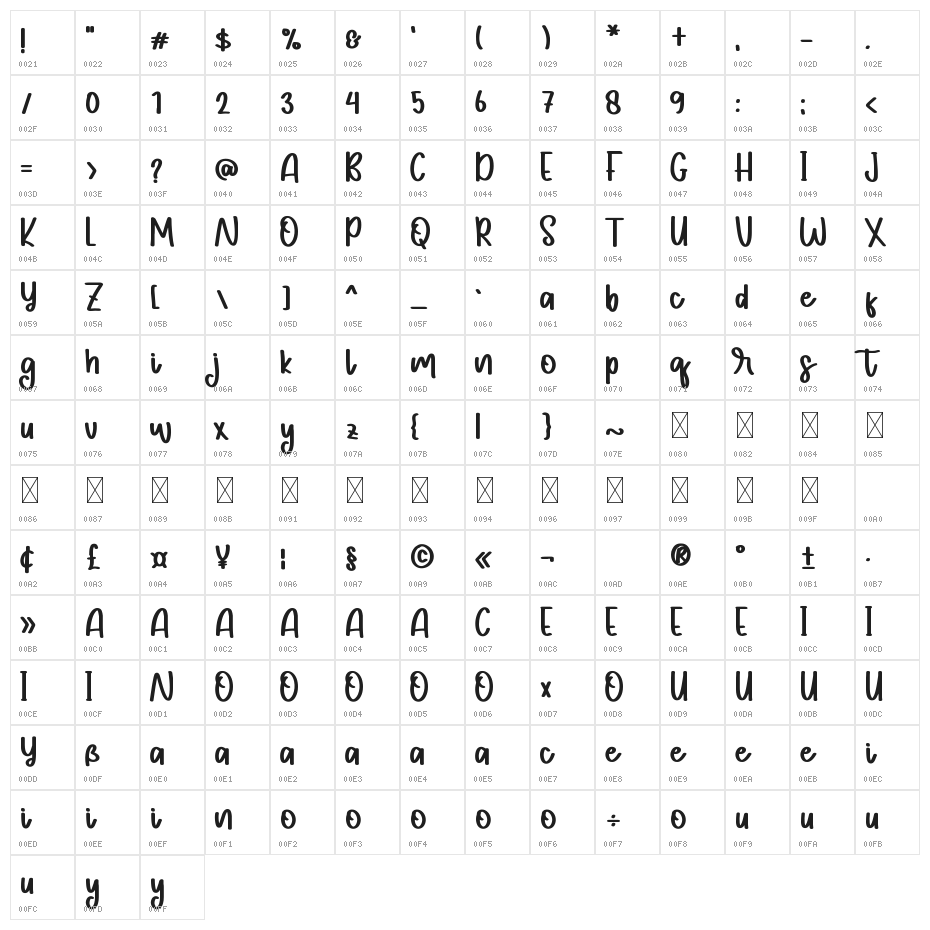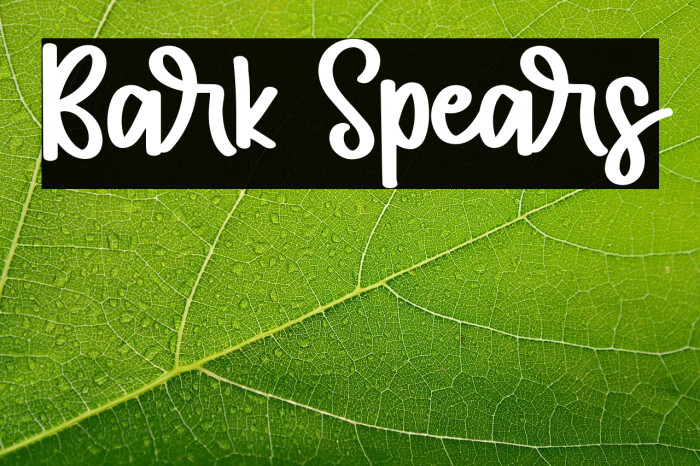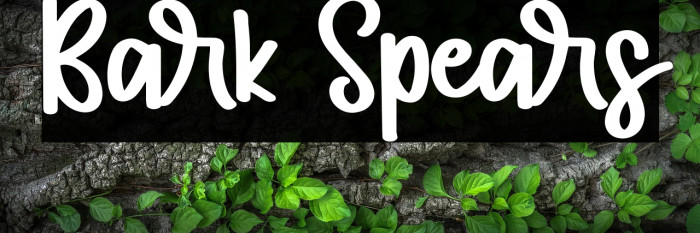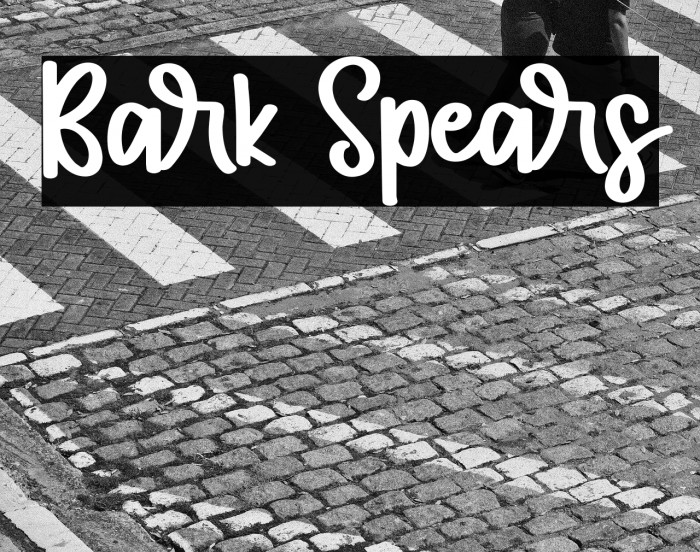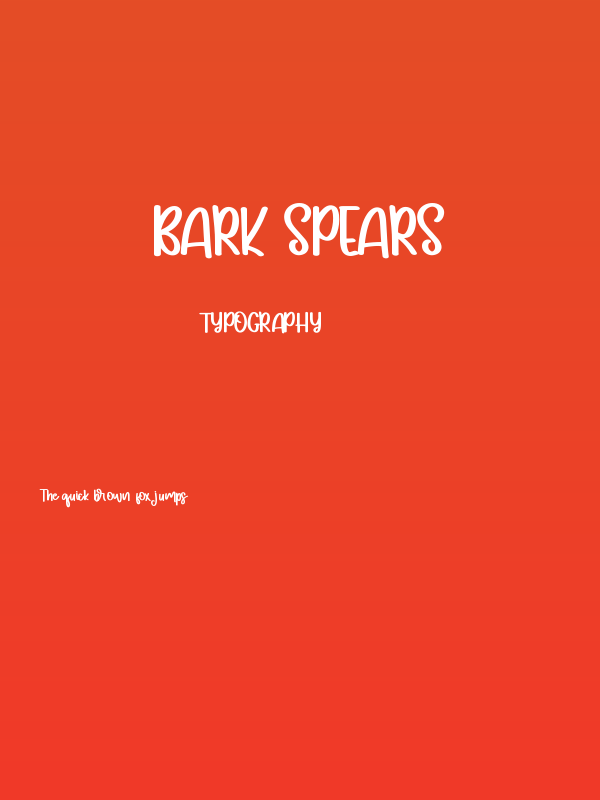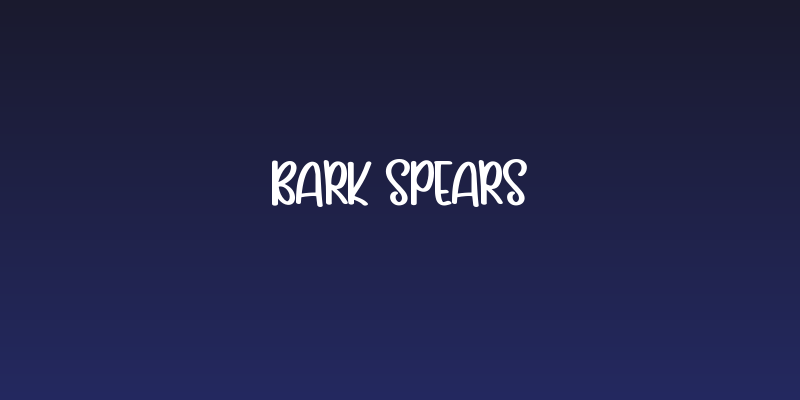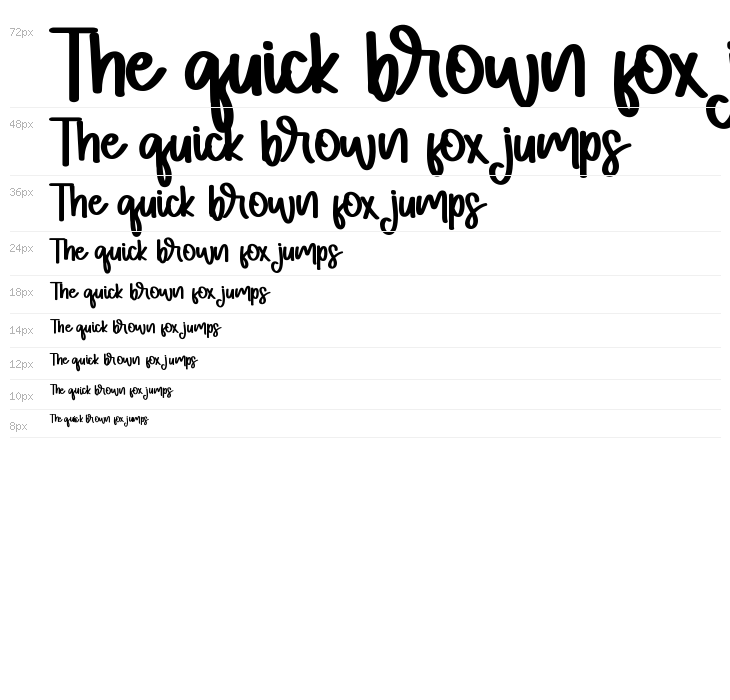
Bark Spears Font
Bark Spears Description
A playful, handwritten typeface with rounded terminals and a casual, informal appearance. The strokes are consistent in thickness, and the characters have a slightly bouncy baseline, contributing to a friendly and approachable feel.
| Overall Style | Playful, Informal, Friendly |
| Use Case | Headlines, Short text, Decorative uses |
| Proposed Projects | Greeting cards, invitations, children's books, posters, social media graphics. |